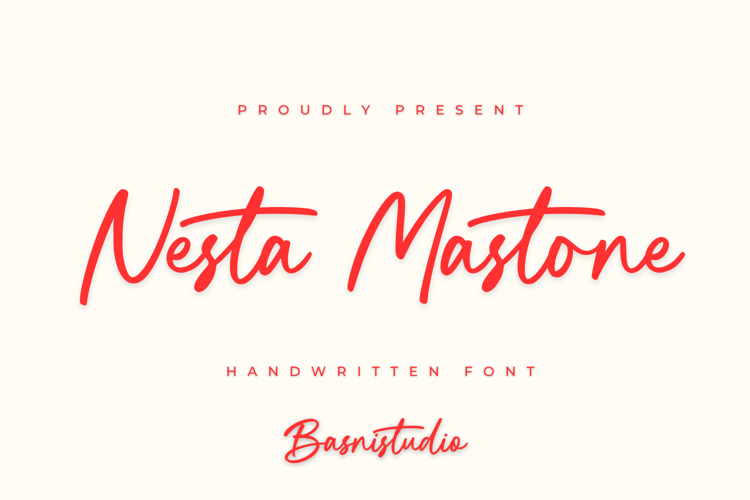
Nesta Mastone Font
Introducing Nesta Mastone a Handwritten Font that adds a elegant, versatile touch to everything from branding and social media to invitations and packaging.